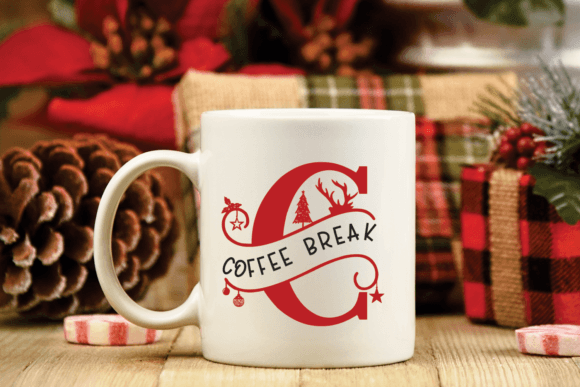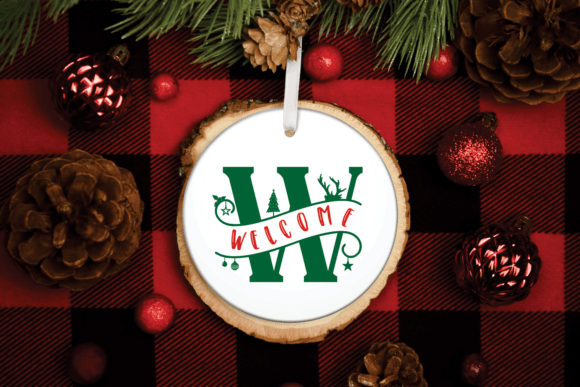
Merry Christmas Monogram Font
Merry Christmas Monogram is a cute decorative font with an amazing look. This font is perfect for Christmas designs, shirts, crafts, farmhouse decor, SVG designs, craft projects, Holiday designs, and more.